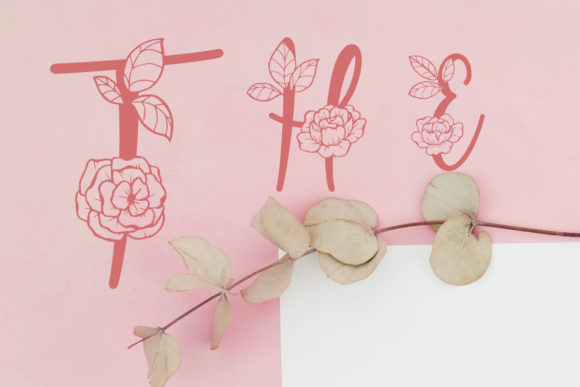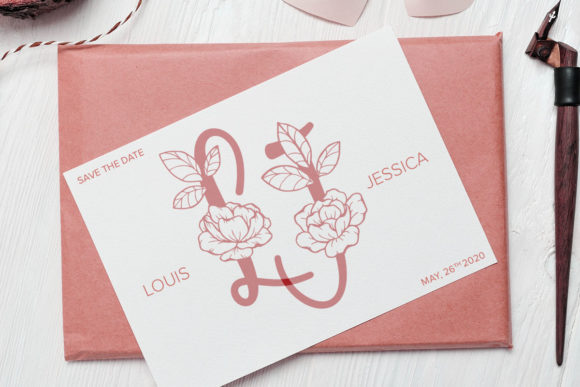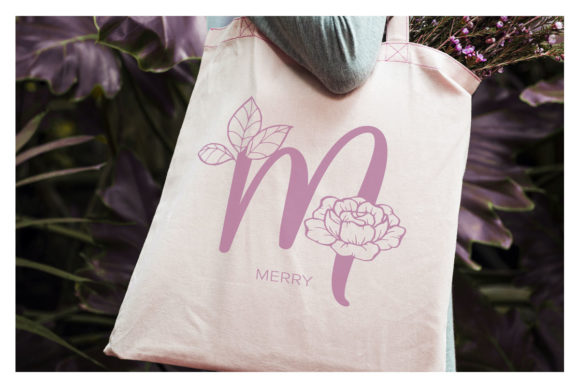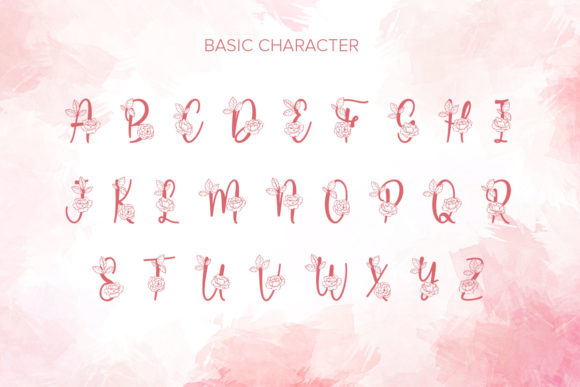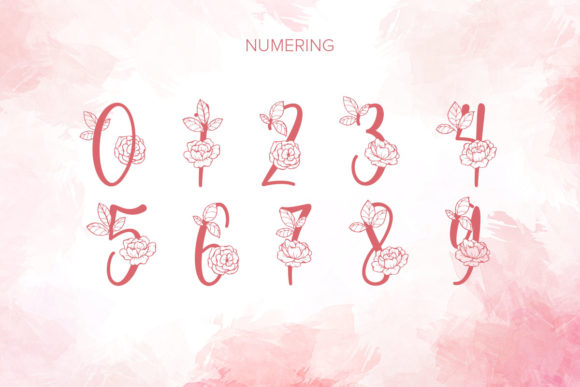
The Sweet Charm of Clarissa Monogram Font
I’ll never forget the time I was working on a wedding invitation project, and my client asked for a font that was “sweet, delicate, and elegant.” I scoured the internet, tried out dozens of fonts, but nothing seemed to fit the bill. That was until I stumbled upon Clarissa Monogram Font. ✨ It was love at first sight! The intricate details, the flowing curves, and the whimsical feel had me hooked. In this article, I’ll share my experience with Clarissa Monogram Font, its features, and how to make the most of it in your designs.
- ✨ Delicate and elegant design, perfect for wedding invitations, stationery, and greeting cards
- ✅ Highly versatile, suitable for various design projects, from digital to print
- 🎉 Authentic feel that adds a touch of sophistication to any design
- 👍 Easy to read and understand, even in smaller font sizes
While Clarissa Monogram Font is an excellent choice, there are a few things to keep in mind: 🤔
- ⚠️ Limited character set, which might not be suitable for projects requiring a wide range of characters
- ⚠️ May not be the best choice for body text or long paragraphs, as it can be a bit ornate
Clarissa Monogram Font was inspired by the art of traditional calligraphy and the beauty of handwritten scripts. The designer aimed to create a font that would evoke a sense of elegance and sophistication, while still being approachable and friendly. The result is a font that feels both modern and timeless.
Q: What type of projects is Clarissa Monogram Font best suited for?
A: Clarissa Monogram Font is perfect for wedding invitations, stationery, greeting cards, and social media posts.
Q: Is Clarissa Monogram Font available in different font styles?
A: Yes, Clarissa Monogram Font comes in various font styles, including regular, bold, and italic.